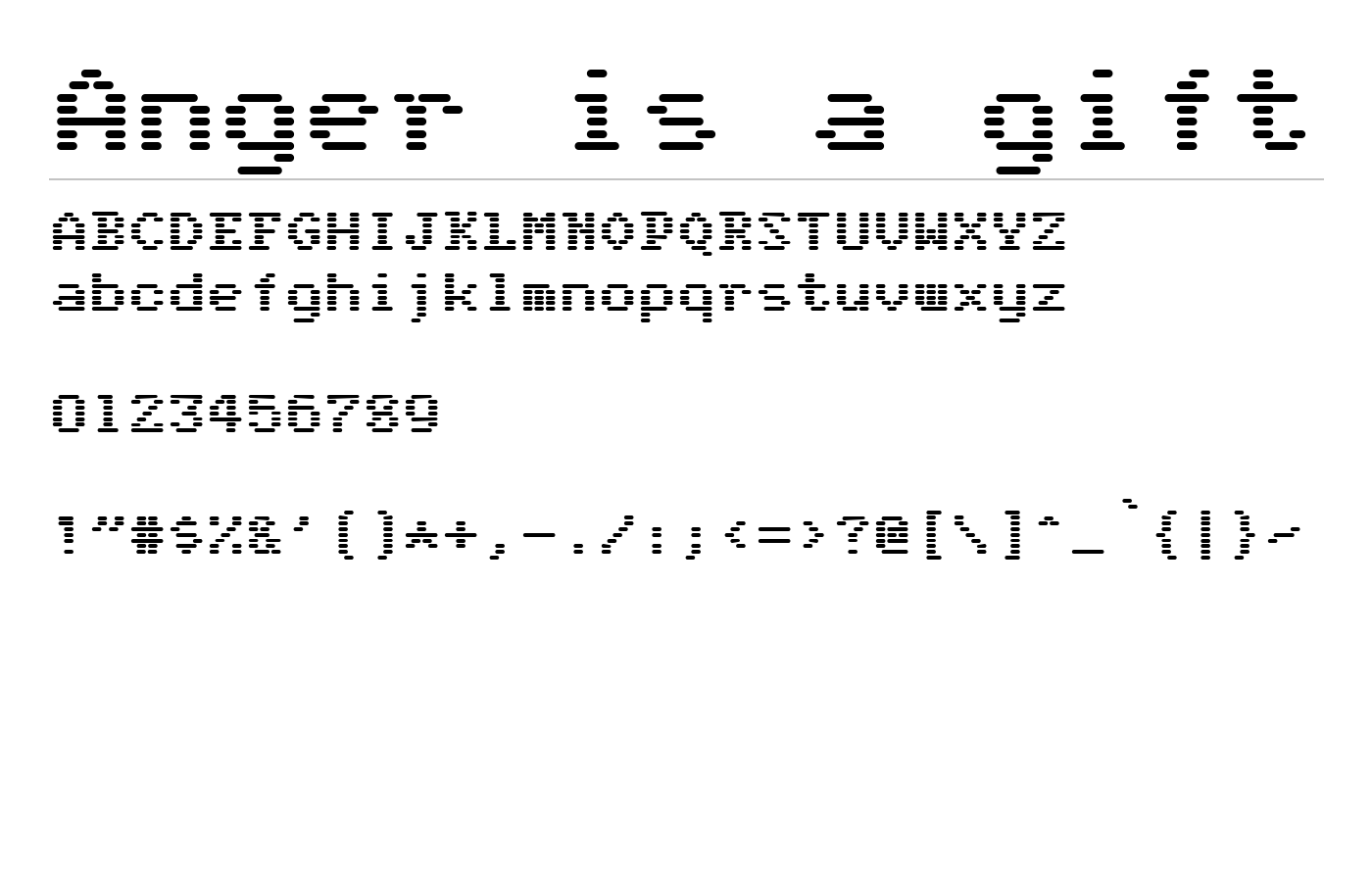
"Anger is a gift" is a unique, pixel-inspired sans serif font with a digital, blocky appearance composed of horizontal, evenly spaced bars. Its consistent stroke weight and monospaced structure give it a techy, retro-futuristic vibe, making it perfect for digital art, coding-themed designs, or modern editorial projects where a distinctive, robotic feel is desired. This font stands out in headlines, logos, and creative branding that aim to convey innovation and a bold, unconventional edge.
Anger is a gift Font